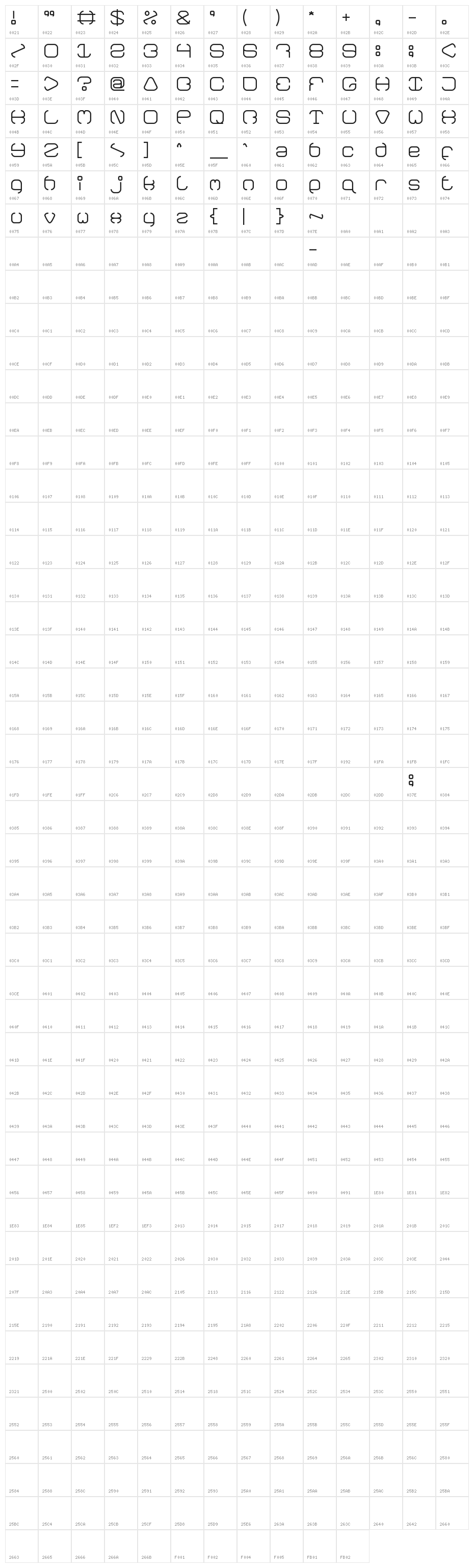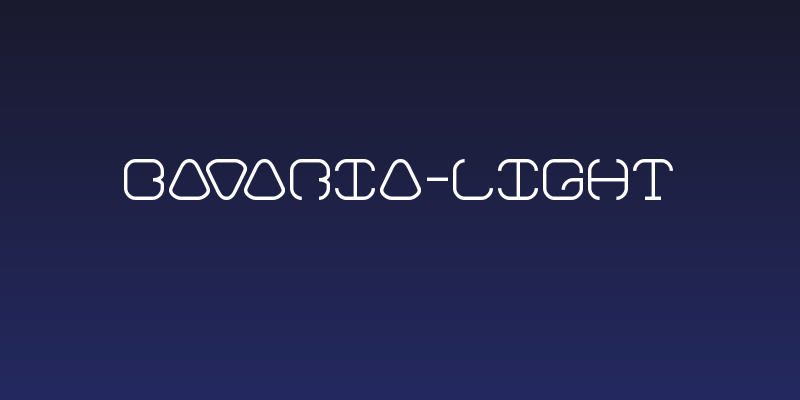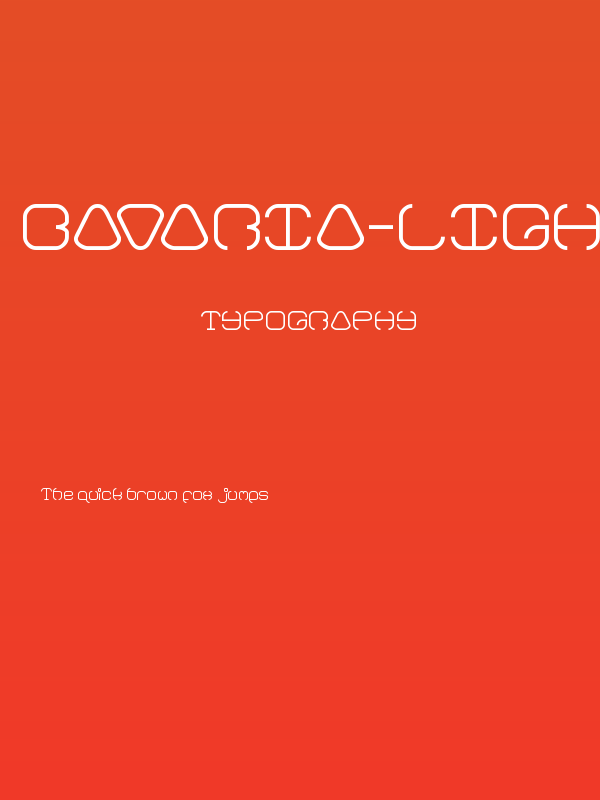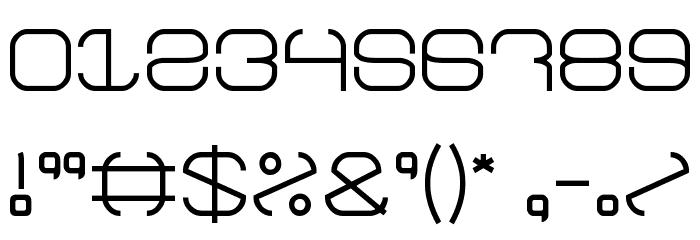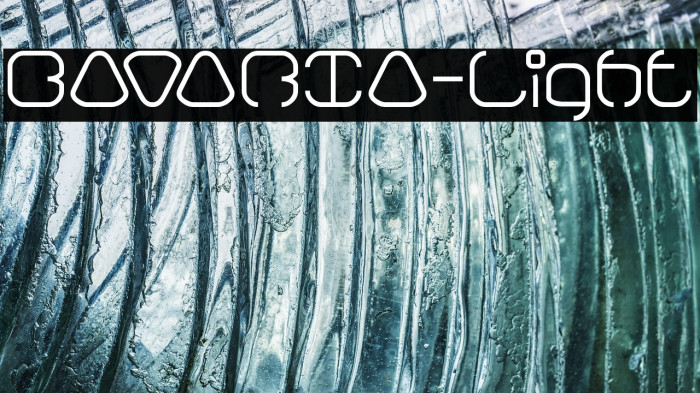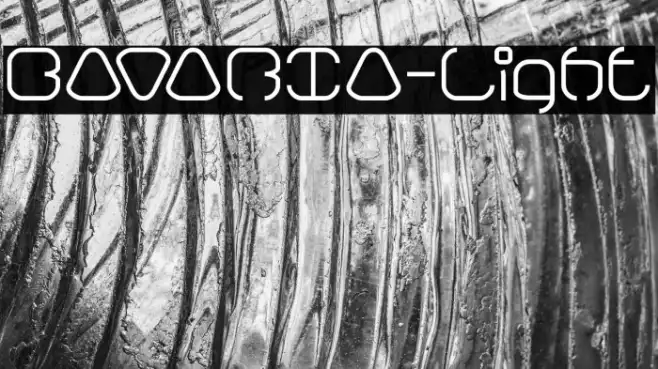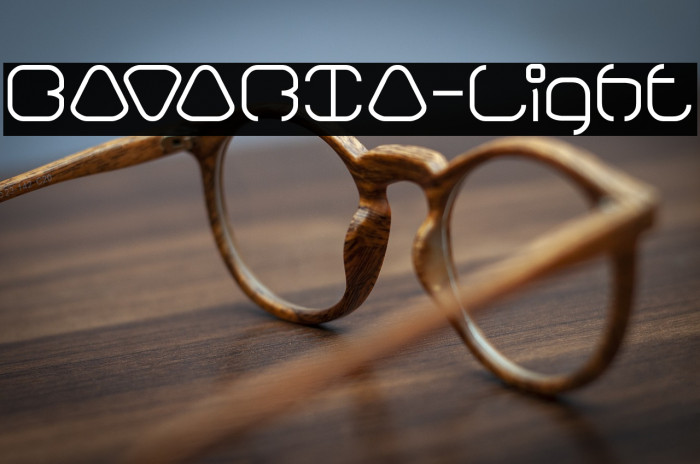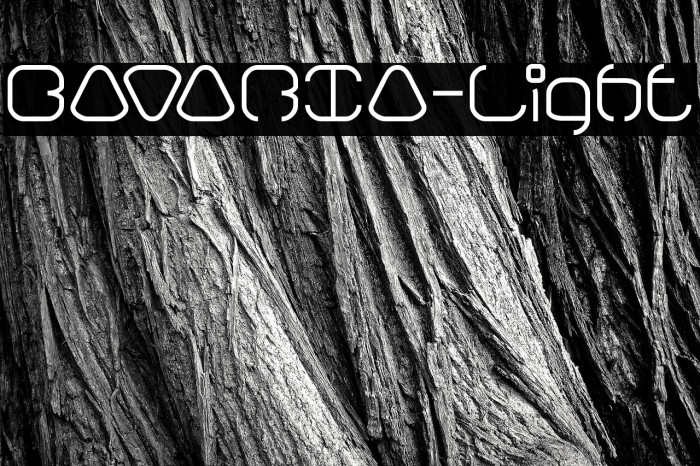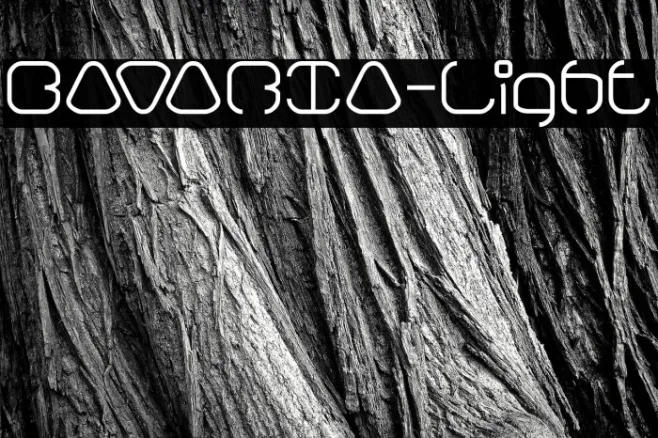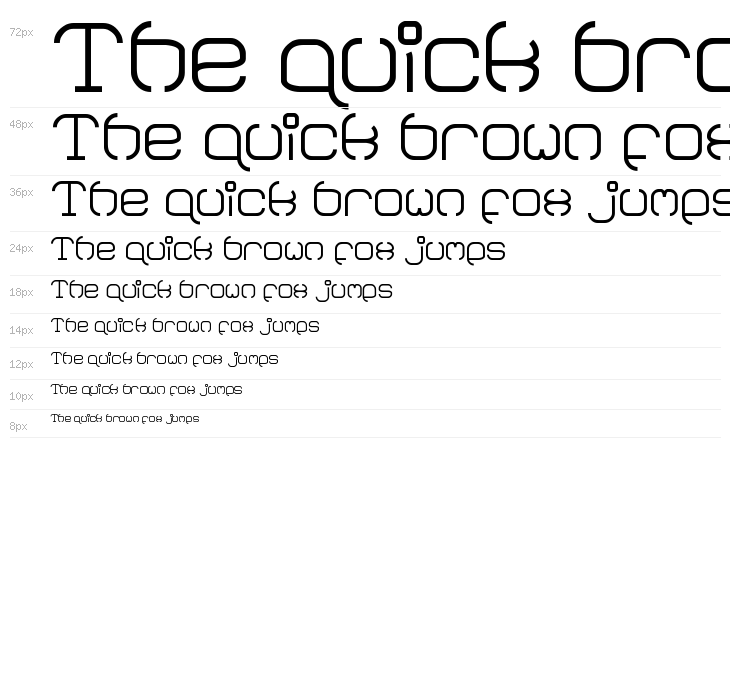
BAVARIA-Light Font
BAVARIA-Light Description
This font features a unique, modern design with geometric influences. The characters are constructed with clean, rounded edges and a consistent stroke width, giving it a futuristic and technical appearance. The uppercase and lowercase letters maintain a uniform height, contributing to a cohesive look. The numerals and special characters are designed to match the overall style, ensuring a seamless integration across different text elements. The font's distinct style makes it stand out, while its readability remains intact, making it suitable for various design applications.
| Use Case | Logos, Headlines, Digital interfaces |
| Proposed Projects | Ideal for technology branding, modern posters, and digital interfaces. |